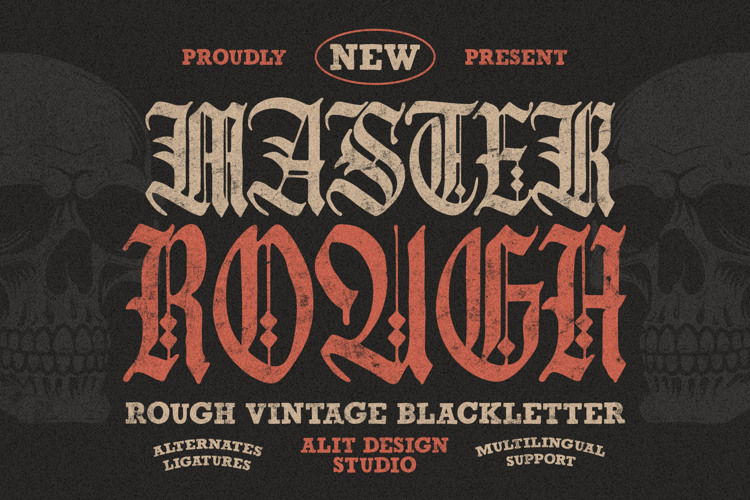
Master Rough Font
Unleash the power of gothic elegance with Master Rough Blackletter Typeface—a captivating font that masterfully blends rough vintage aesthetics with old-world charm. Designed for those seeking to elevate their projects with a bold, timeless look, this typeface echoes the spirit of historic manuscripts while introducing a rugged, modern edge.